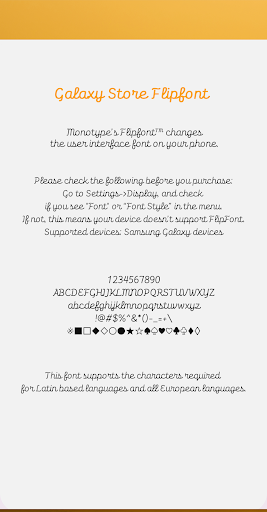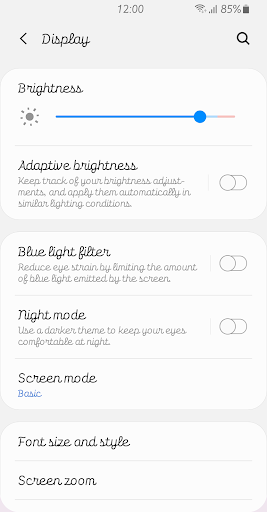
Fine Minimalist
It is a handwriting-style font that shows a stable and comfortable appearance.
Smoothly flowing curves and even-thick strokes show a concise appearance.
The liveliness felt in the tilted structure and the unadorned form exude natural beauty.